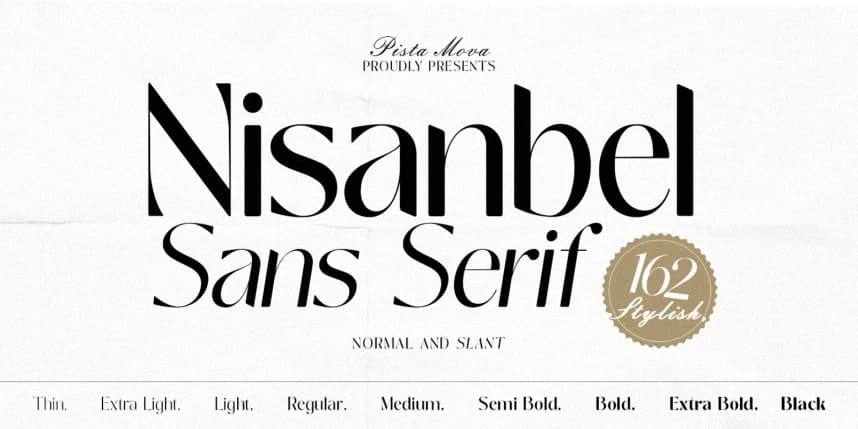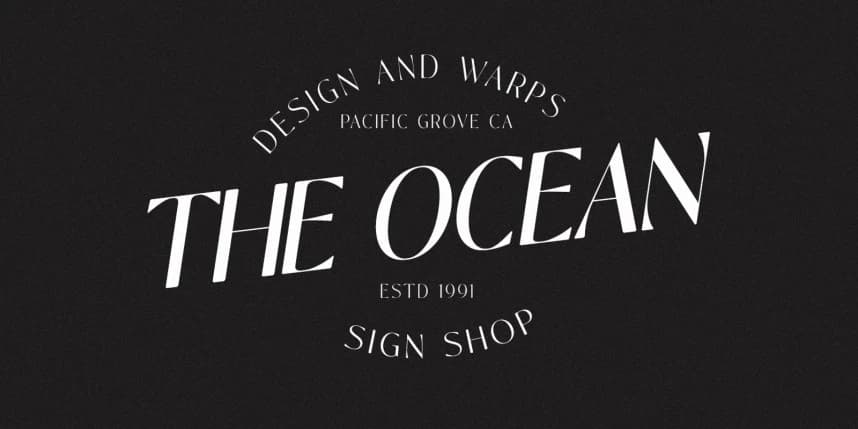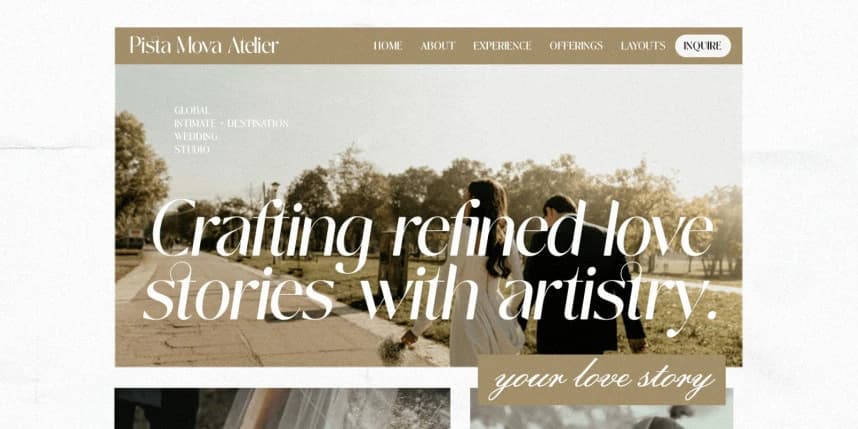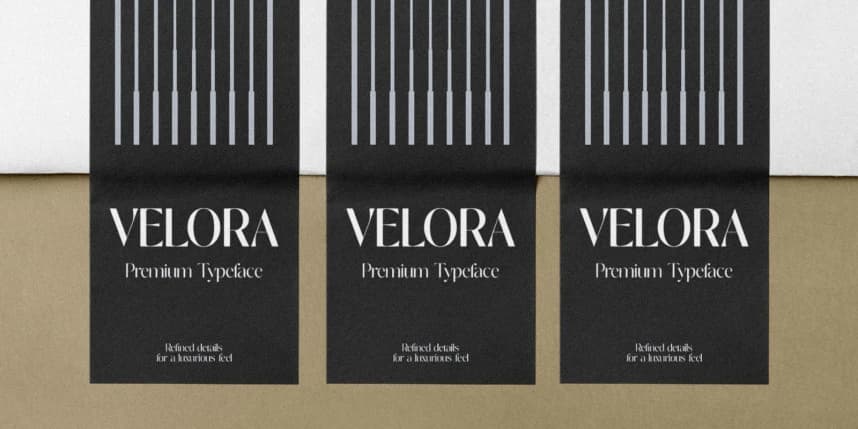
Nisanbel Font
Nisanbel Font: A Sans Serif Typeface for a Modern Aesthetic Experience elegant simplicity with Nisanbel, a meticulously designed sans serif typeface that combines modern clarity and timeless sophistication.